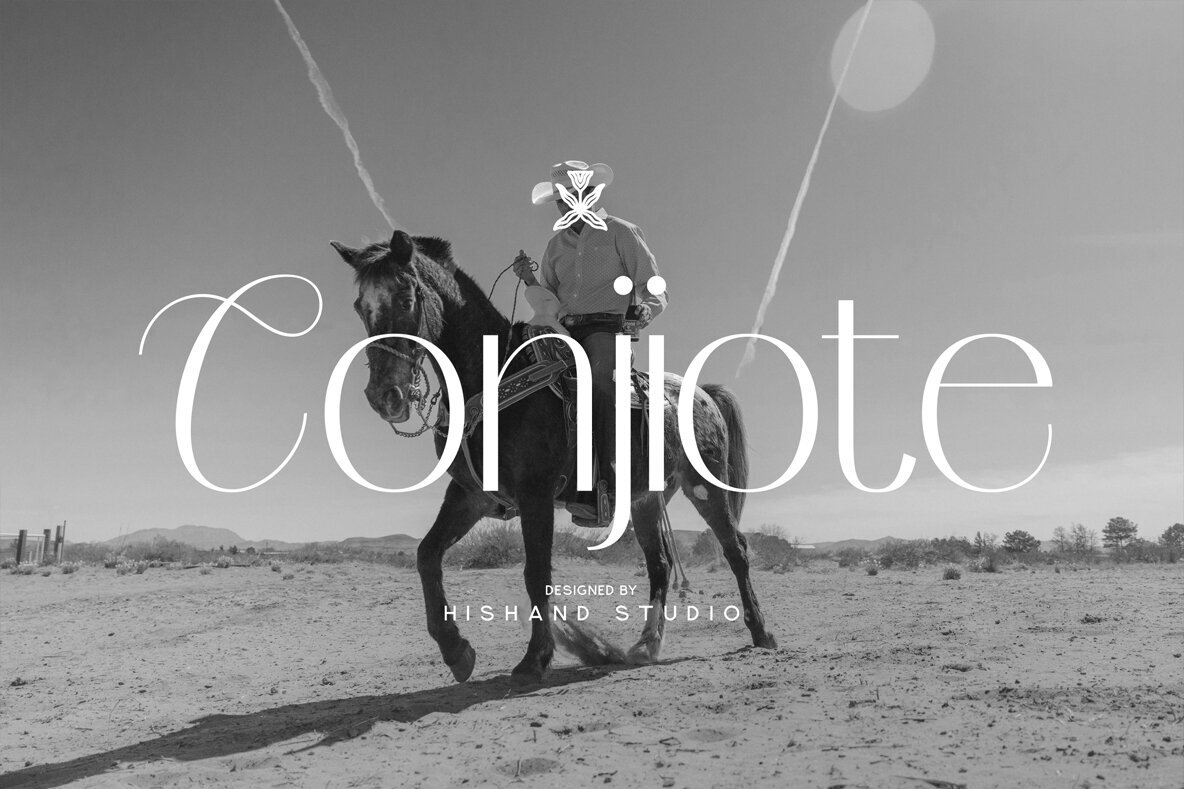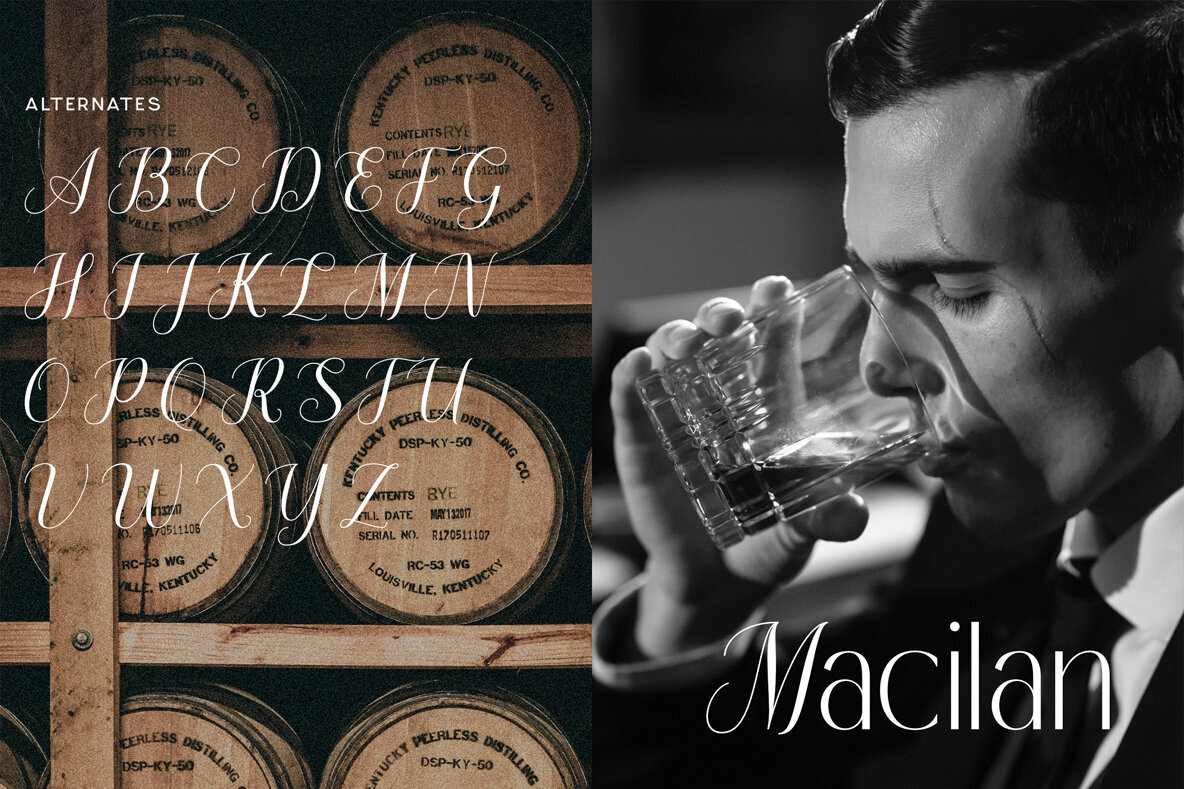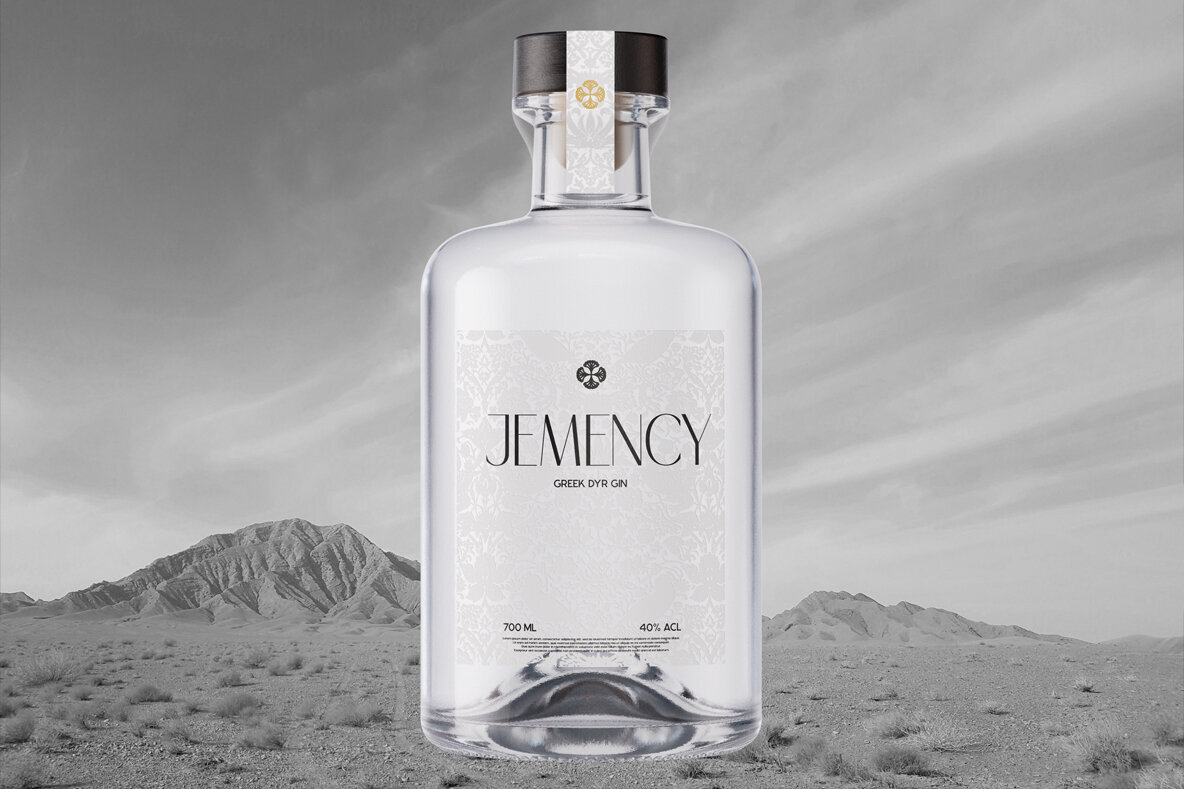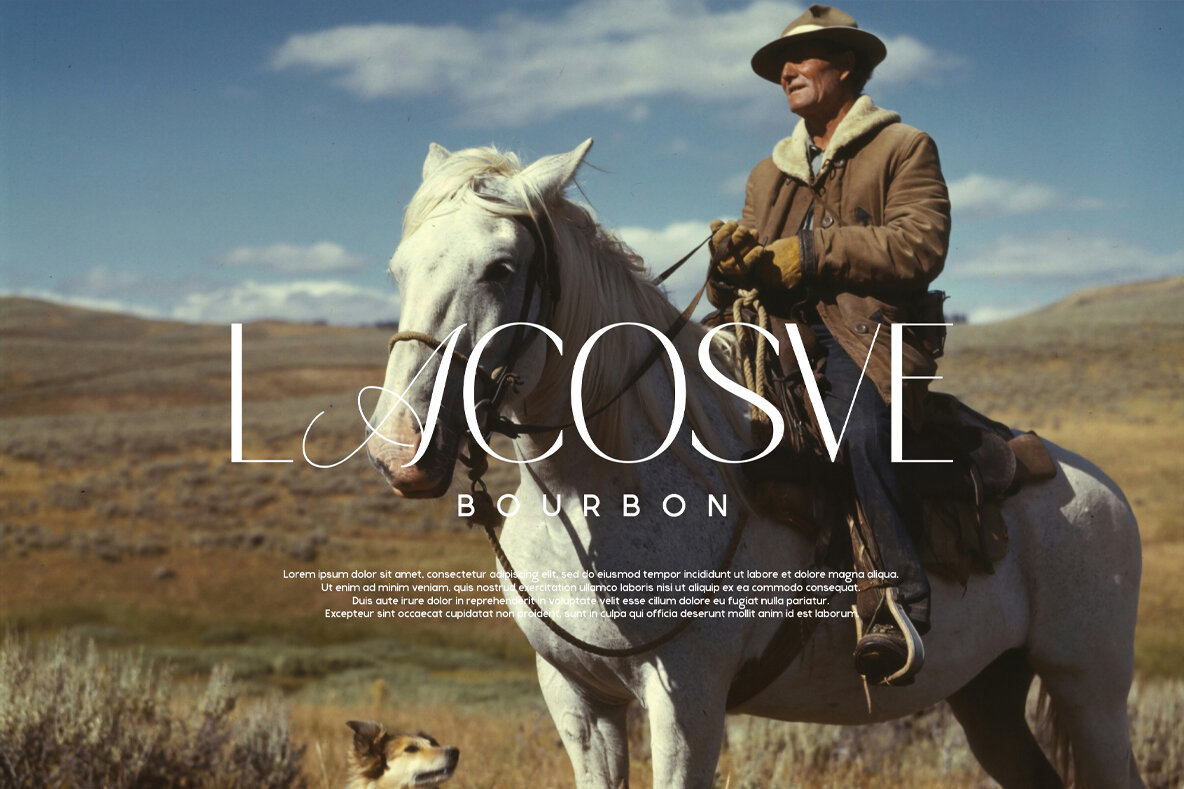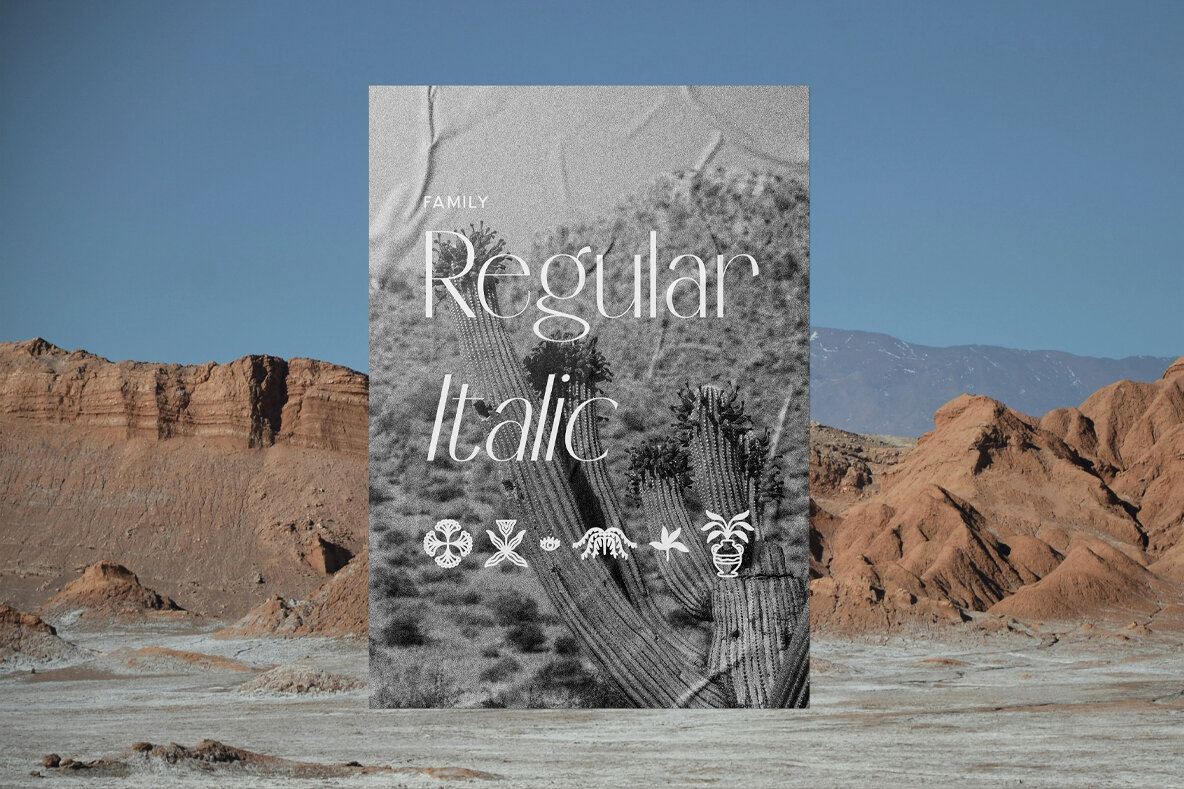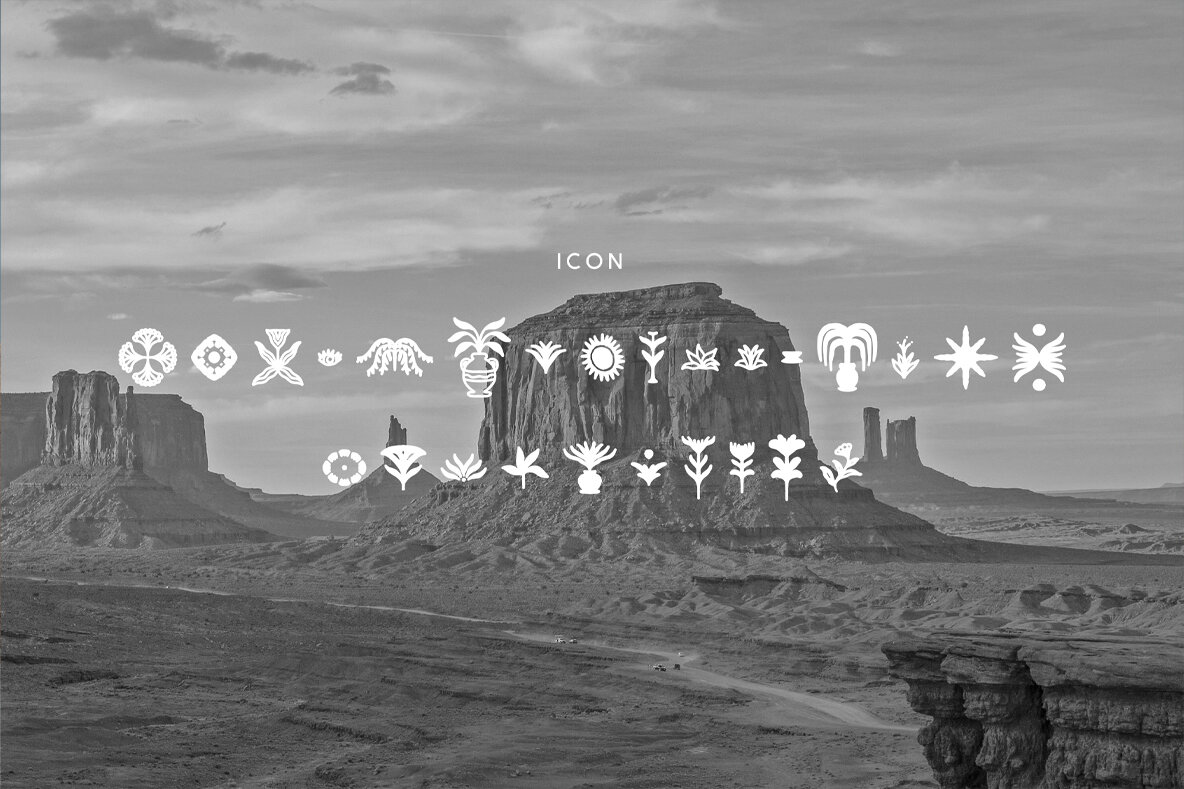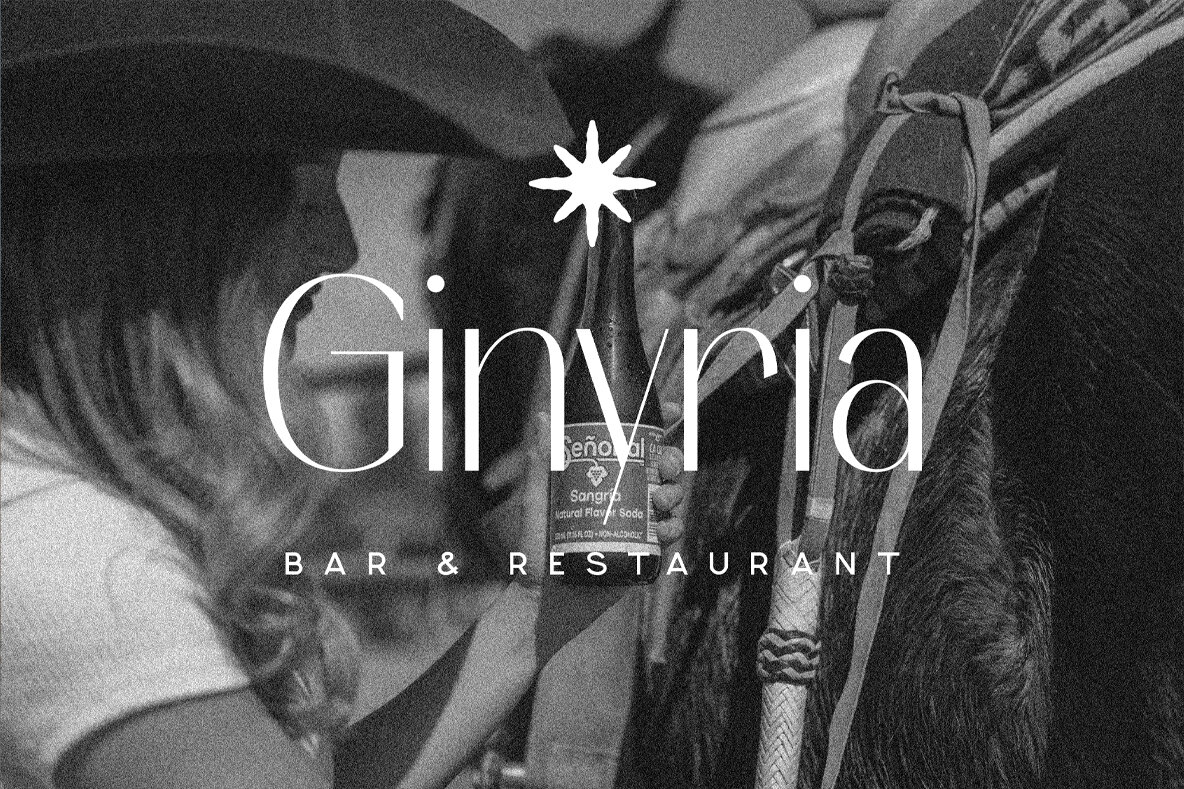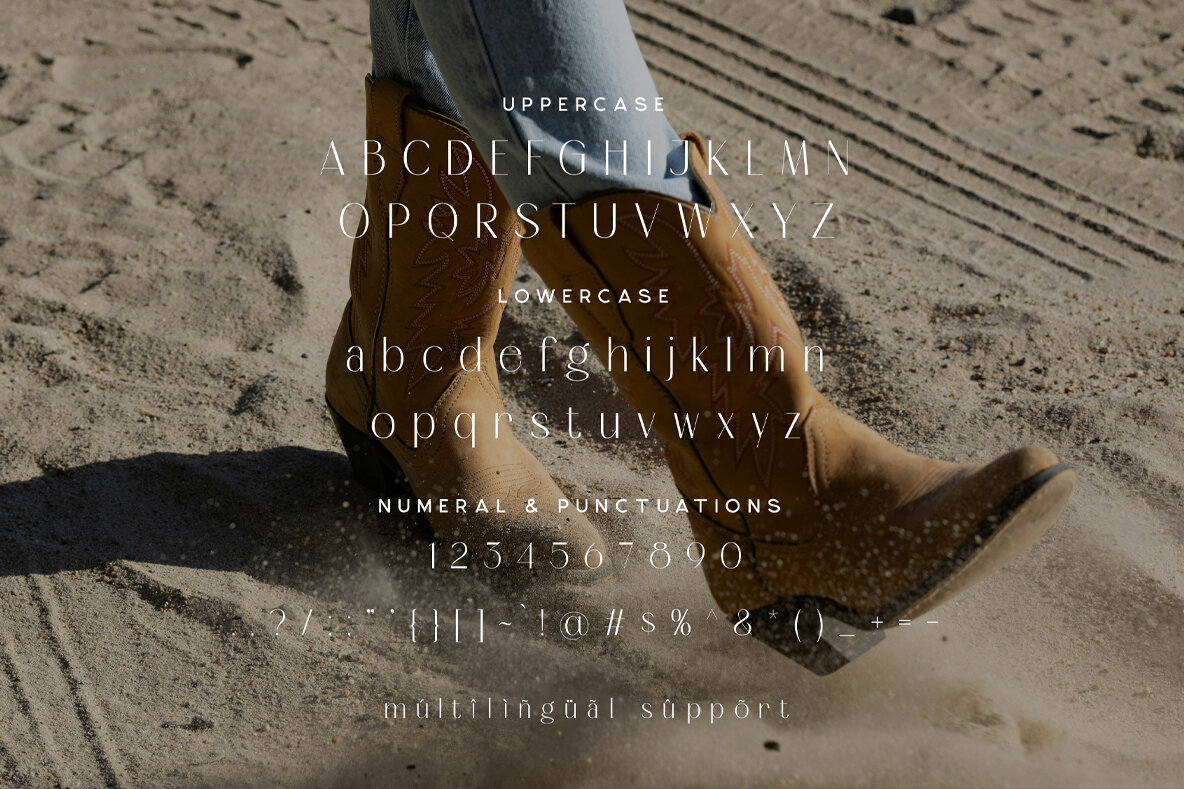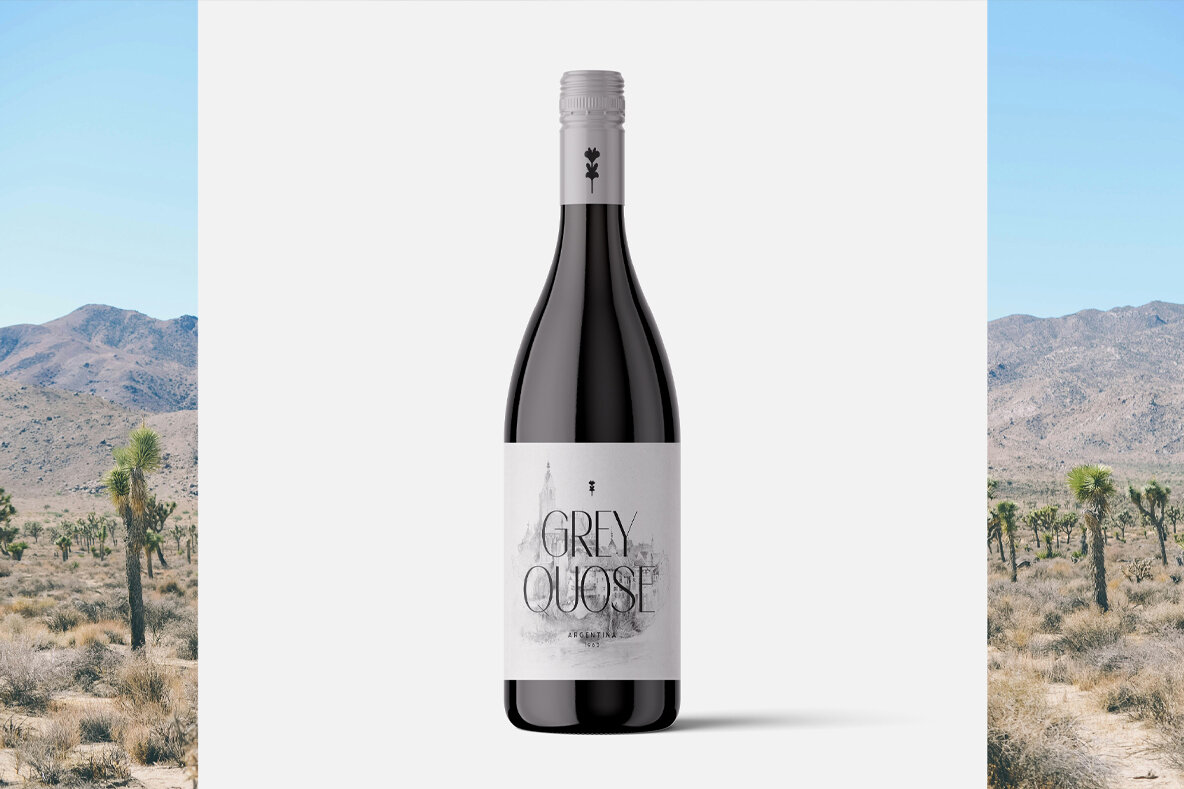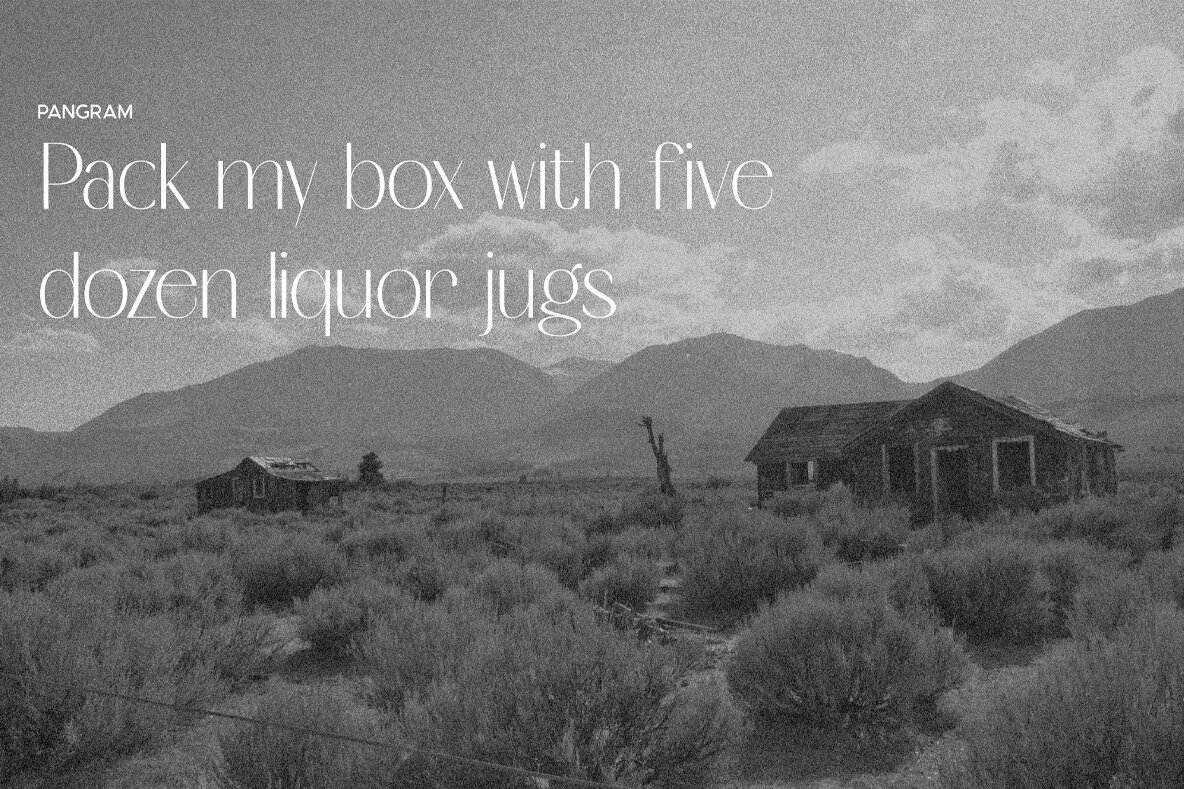
Conjiote Font
Conjiote
Conjiote Italic
Conjiote Icon
Conjiote is a refined sans serif font that masterfully combines modernity with the charm of elegant script. Designed to exude sophistication, it balances minimalism with artistic curves, making it an excellent choice for branding, wedding invitations, social media graphics, and editorial designs. The font's sans serif foundation provides clarity and versatility, while its subtle script-inspired elements introduce a fluid, handwritten elegance that feels both timeless and contemporary.Conjiote: A Sophisticated Sans Serif